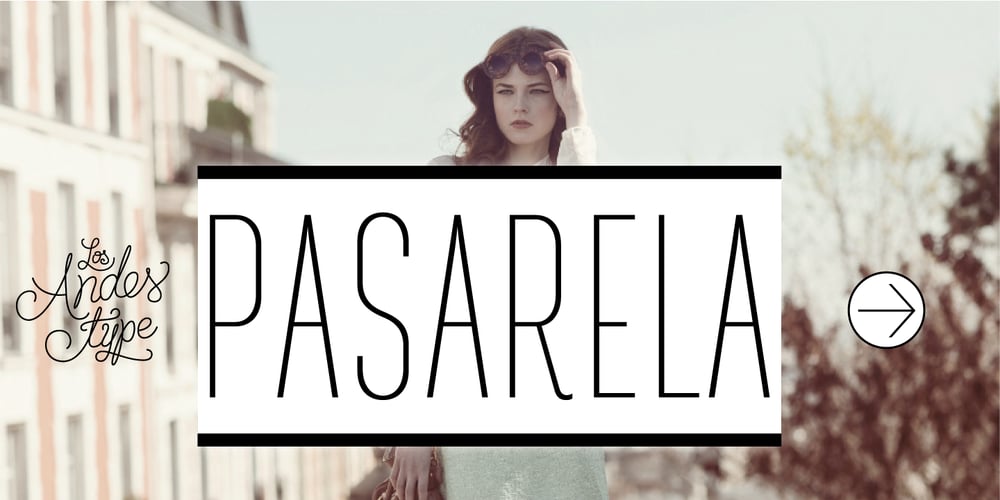
Pasarela
Pasarela font
Pasarela Font Family was designed by Mendoza Vergara and published by Los Andes. Pasarela contains 5 styles and family package options. The street is the new runway. Pasarela is a display typeface inspired by the new culture of fashion in the streets. A global phenomenon across continents, traveling through social networks, fashion bloggers and street style. Everything is possible, everything is combined. The new culture of fashion is eclectic with hints of each culture at miles away. The complexity generated by the start page of this mix styles is solved perfectly with his neutral and clean tone, streamlined structure and thin strokes. It has been designed in two weights plus a set of borders that can generate graphic compositions for application in blogs, magazines, posters and tv. No one needs to be a fashion victim to cross the pasarela.